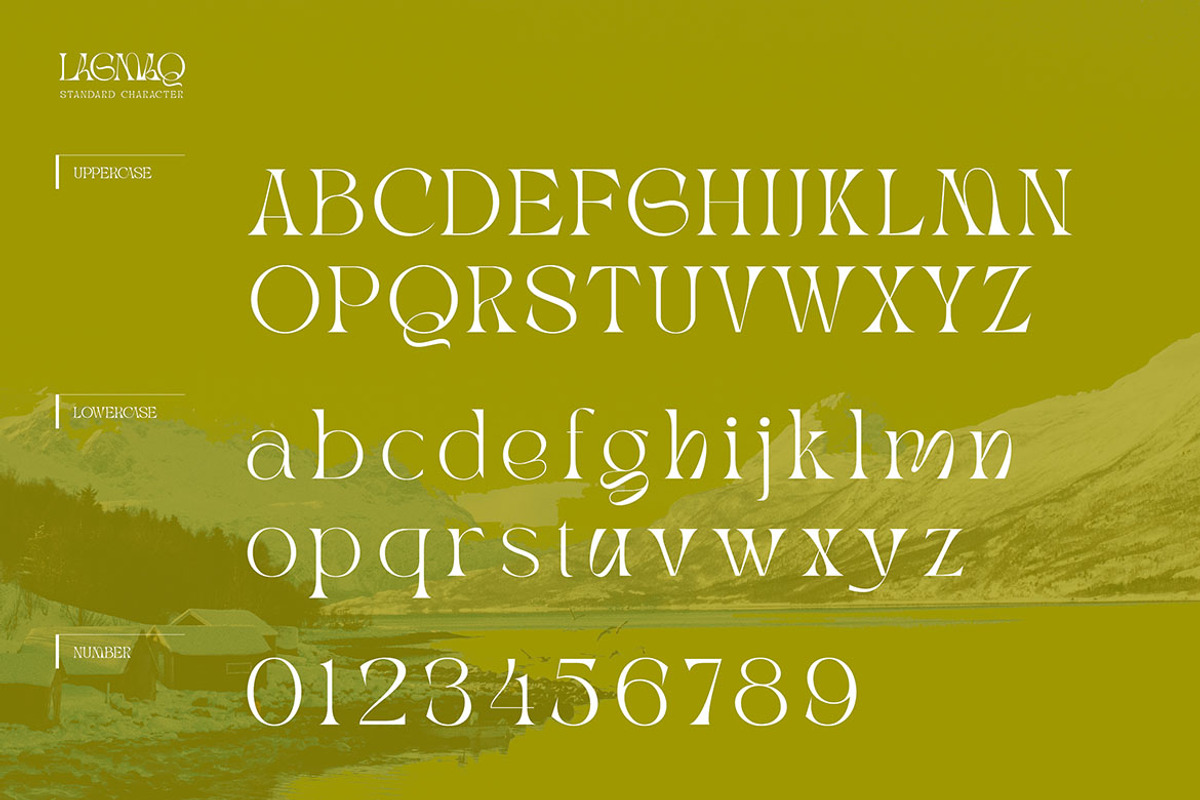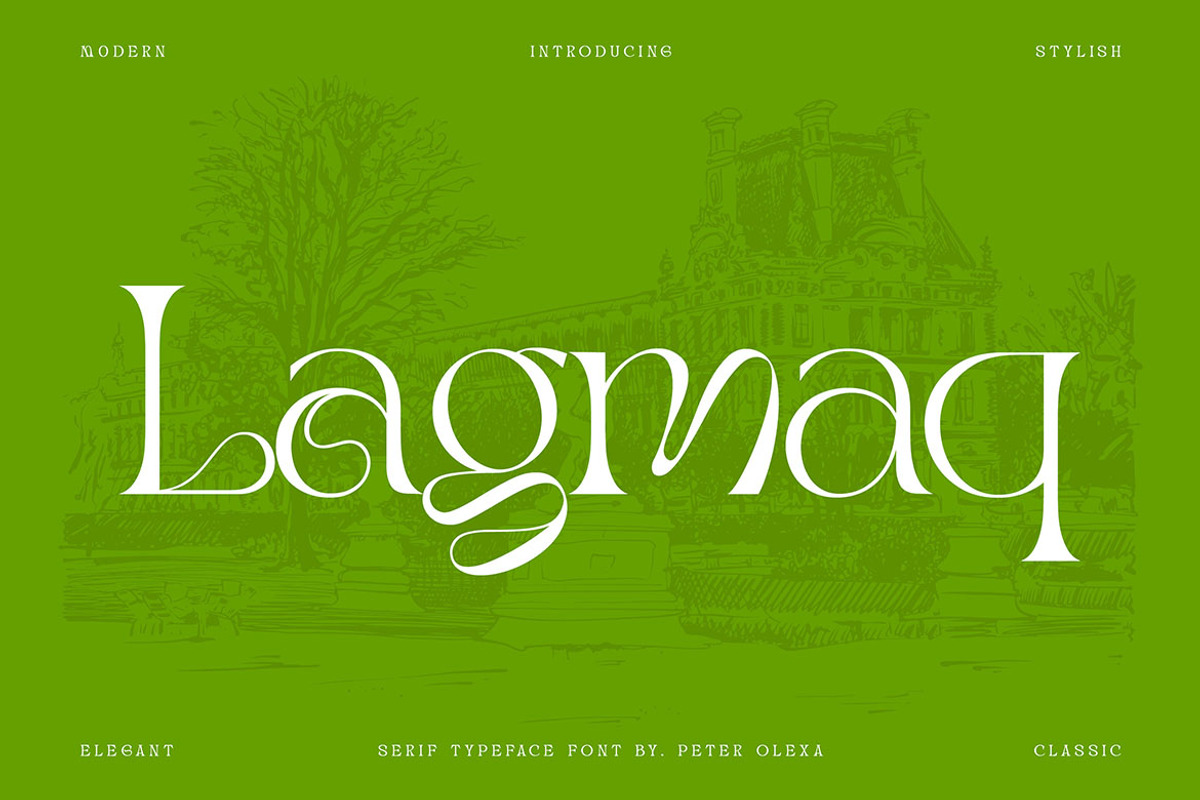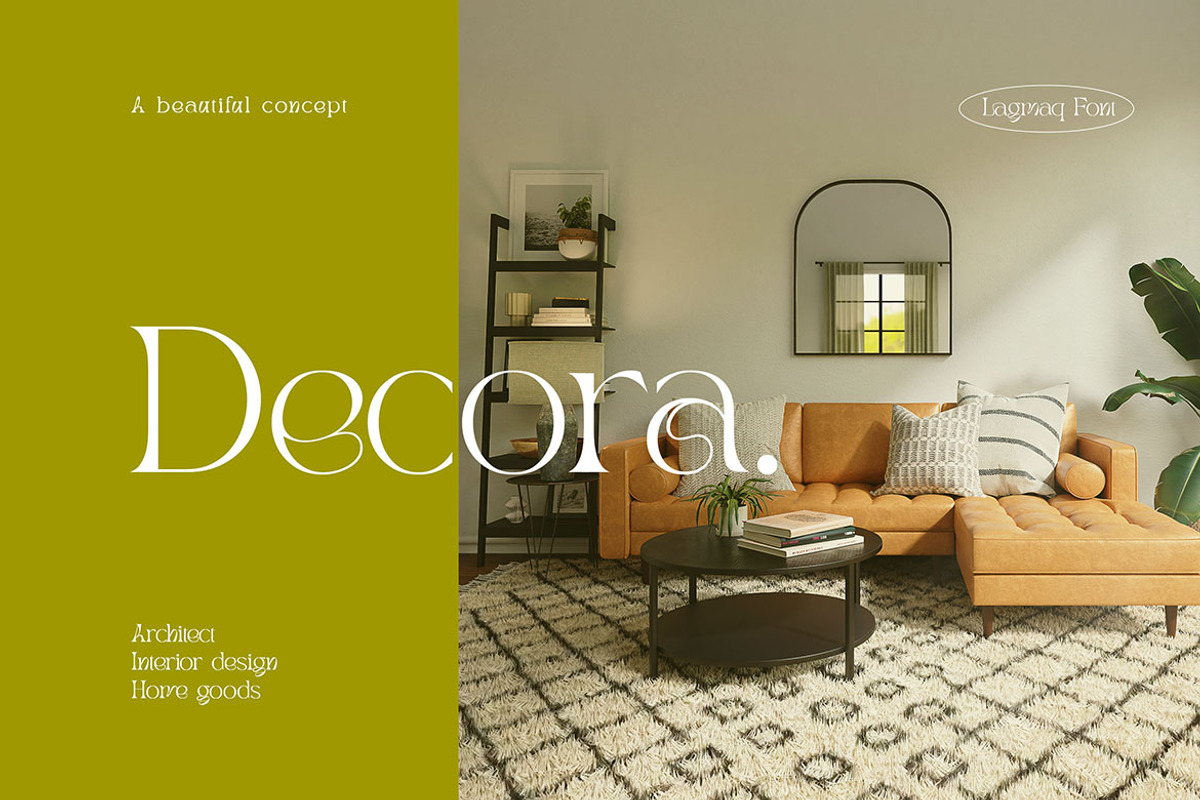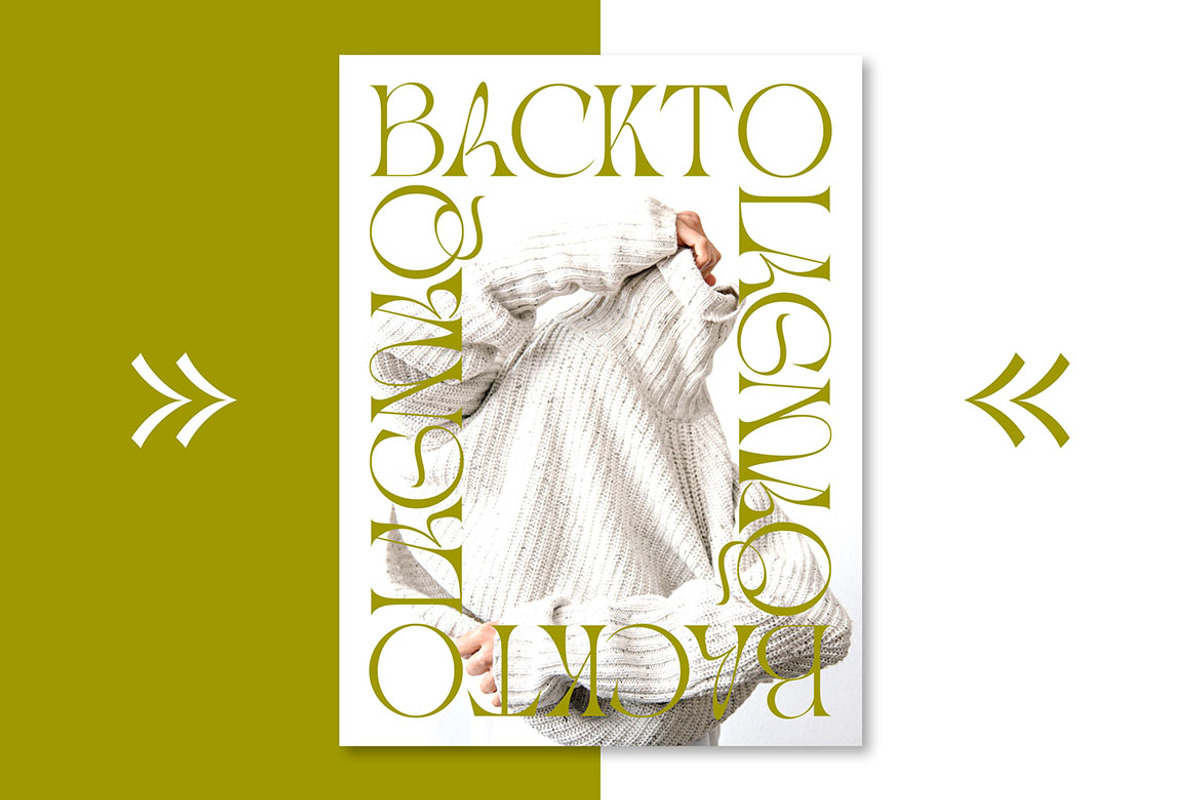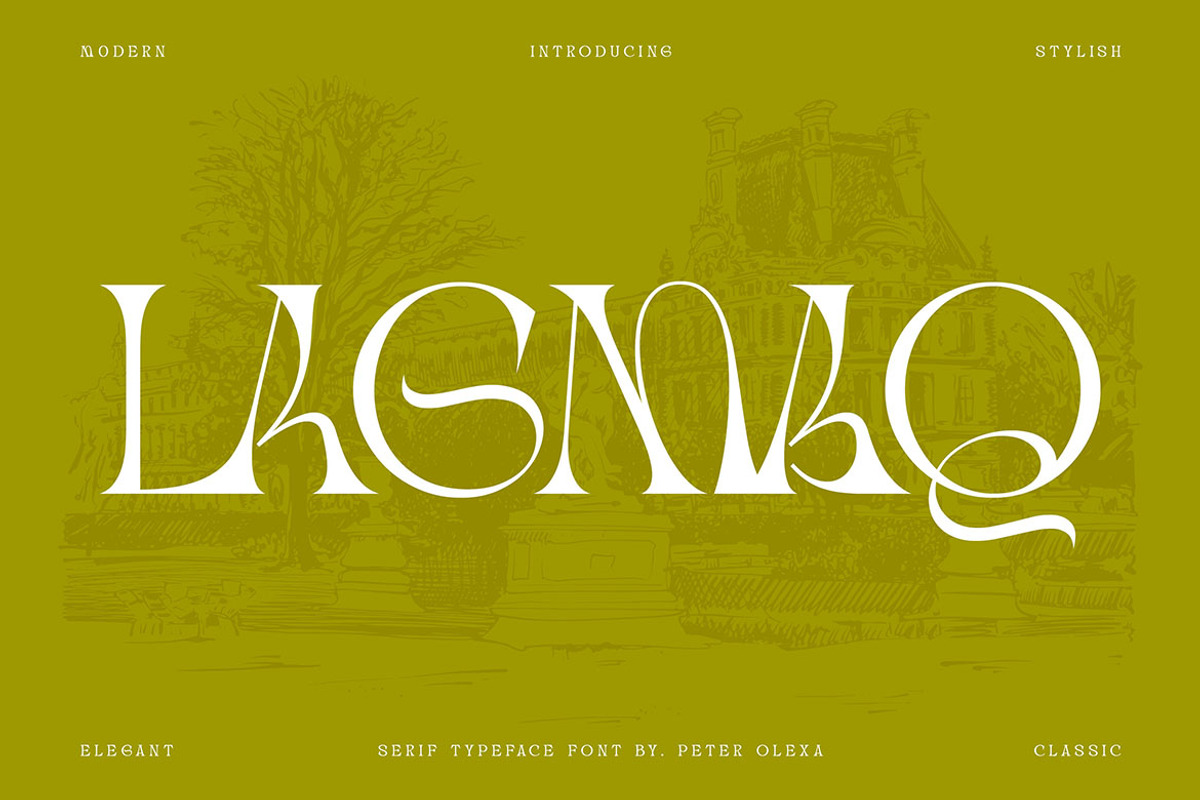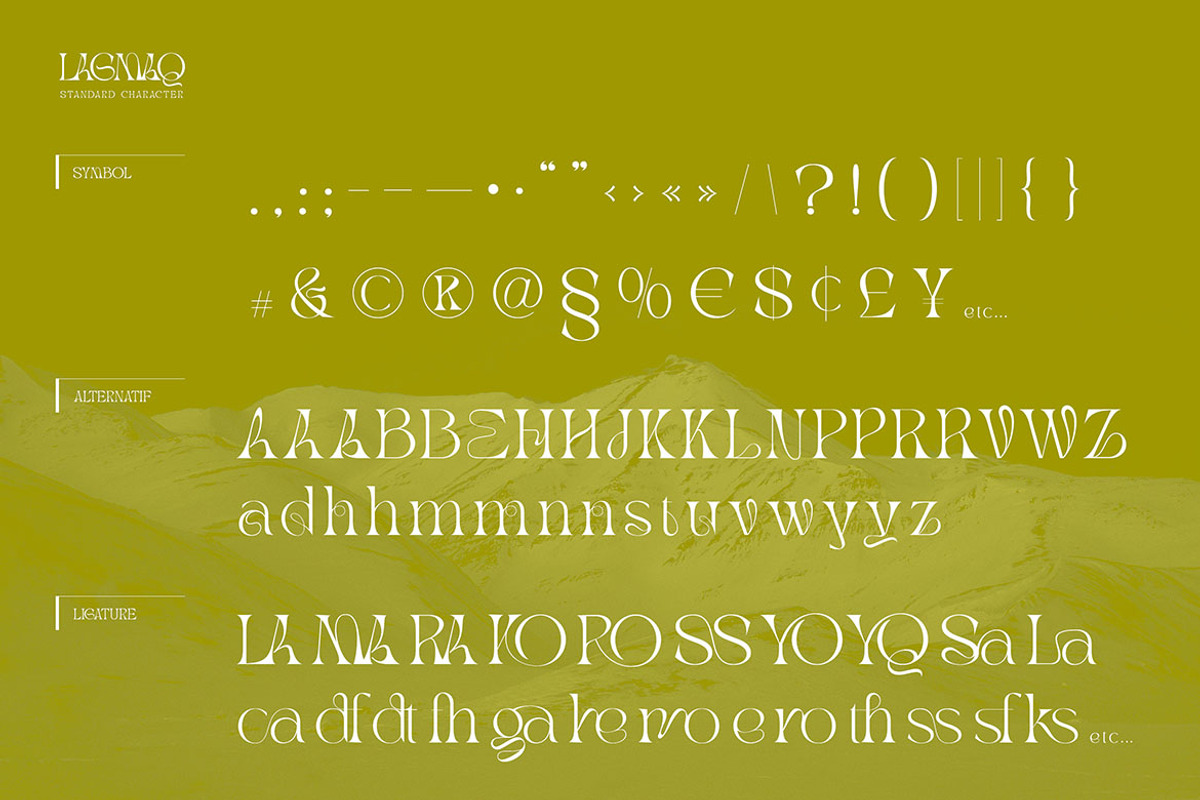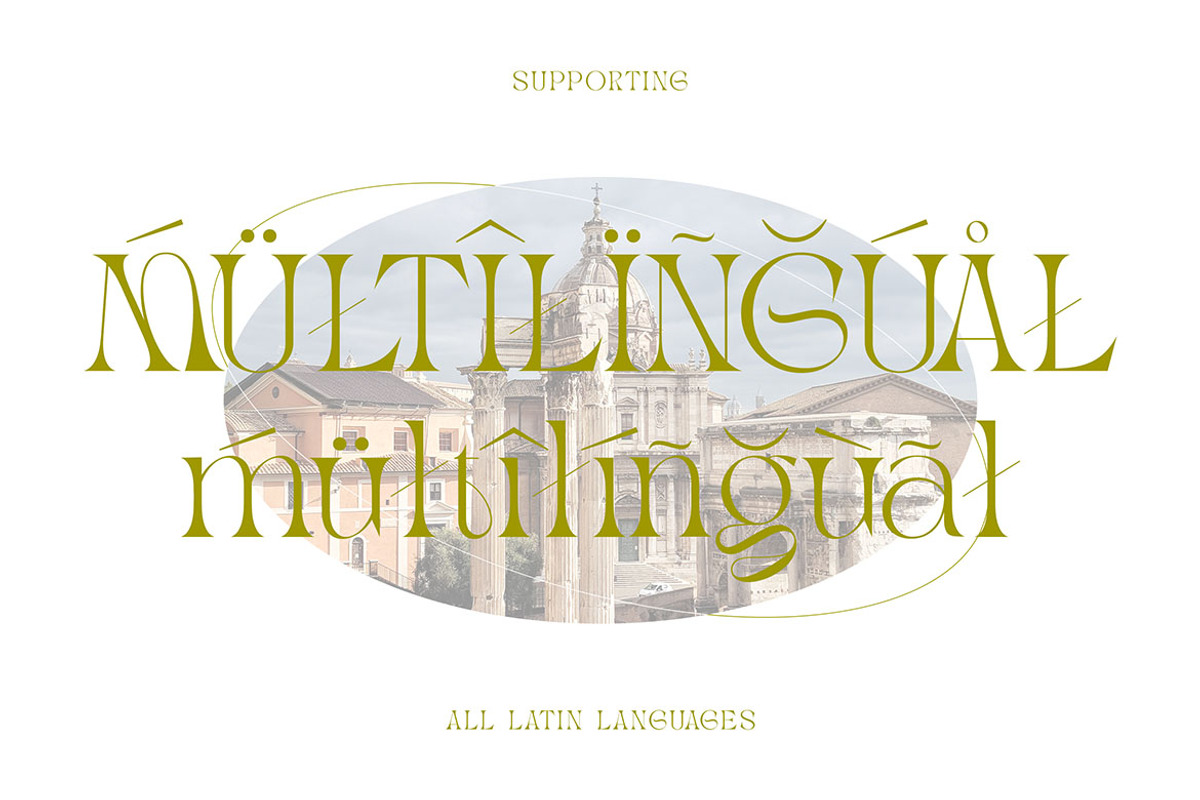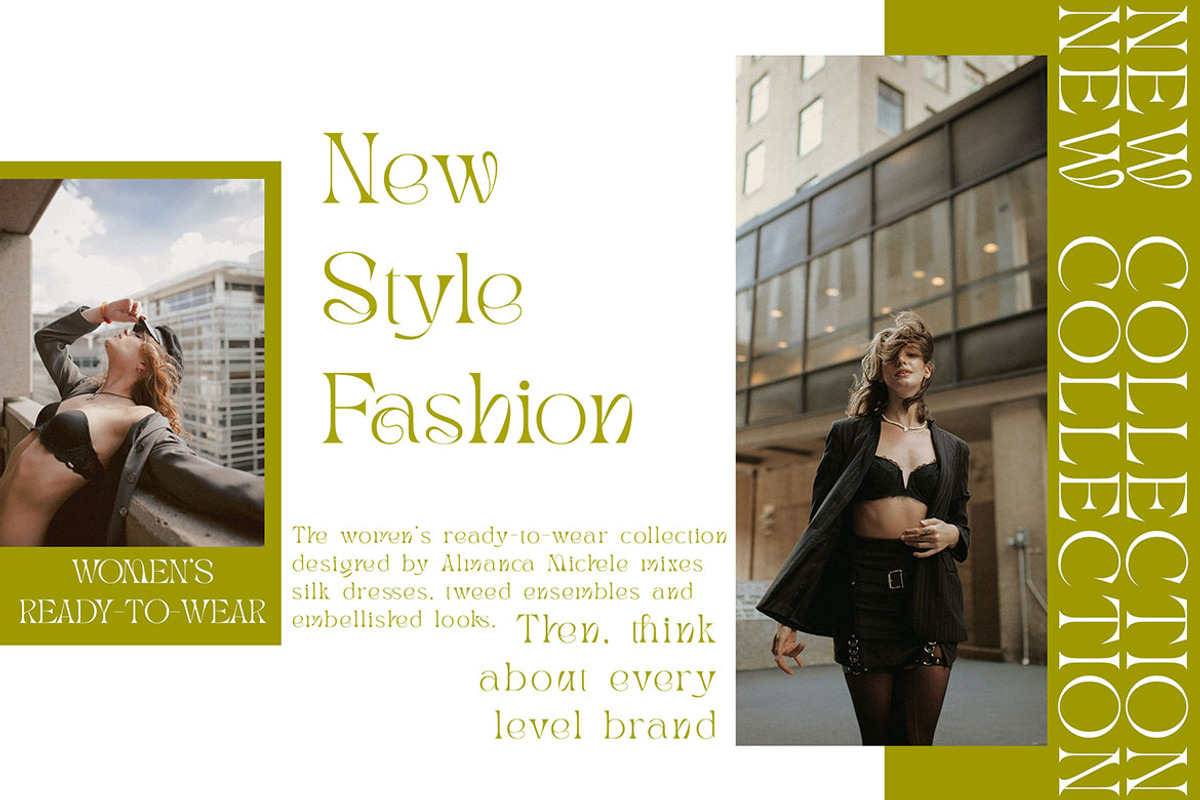
Lagmaq Unique Serif Font
Trendy, elegant, artistic & modern style serif font for your fancy projects. Elegant, fashion and crazy style on Lagmaq font will be great for any branding project. Lot of alternates and ligatures will help you to create unique and original logo design or website header! Enjoy :)
- Lot of alternate characters
- Lot of ligatures
- Great for modern branding projects!